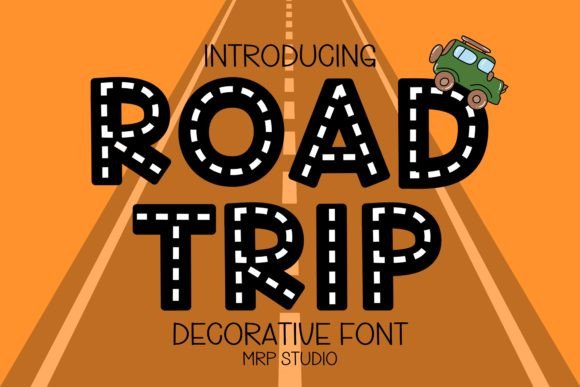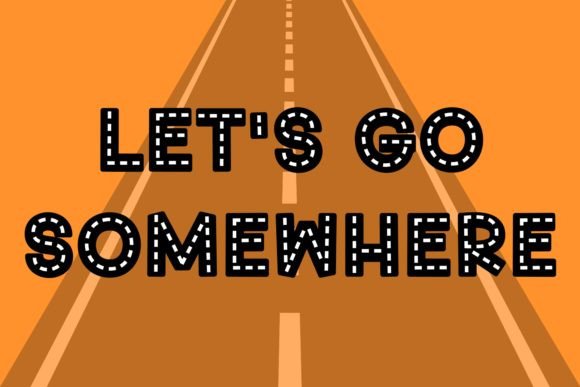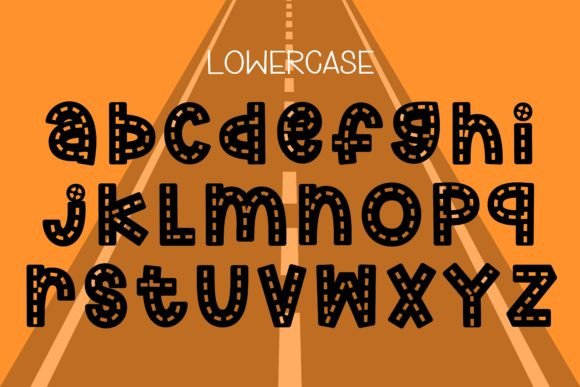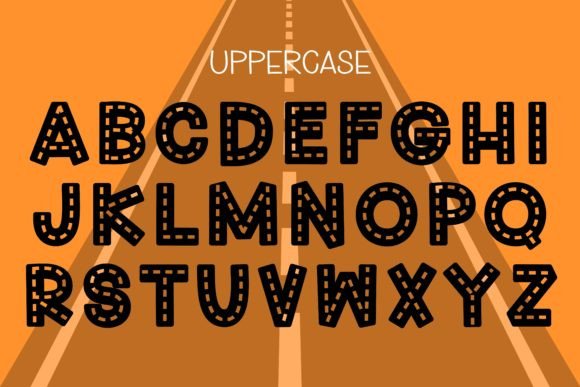
Road Trip Font
About the Road Trip Font
We are excited to introduce Road Trip Font, a must-have typeface for any serious designer. Road Trip is a childish and bold display font. Each character resembles winding paths and highways, evoking the excitement of a road trip. The font captures the essence of exploration, reminiscent of discovering new routes and imaginary destinations. With its road-inspired appearance, this font adds a touch of adventure to your design.
Road Trip Font’s playful boldness makes it ideal for headlines, posters, and branding projects needing a sense of adventure and fun. It works exceptionally well for children’s products, travel-related businesses, or anything emphasizing a carefree, energetic spirit. However, its highly decorative nature makes it unsuitable for body text or UI elements where readability is paramount. Long paragraphs set in Road Trip would be difficult to read.
Consider pairing Road Trip with a clean sans-serif like Open Sans for body copy, providing a strong contrast in style and ensuring readability. For a more playful combination, a rounded geometric sans-serif such as Lato would complement its curves. Alternatively, a classic serif like Garamond could add a touch of sophistication to balance its childlike charm.
The font’s overall personality is undeniably bold and playful, yet retains a friendly approachability. It’s best suited for projects aiming for a youthful, adventurous, and optimistic feel.
Road Trip Font Usage Examples
Road Trip Font Example